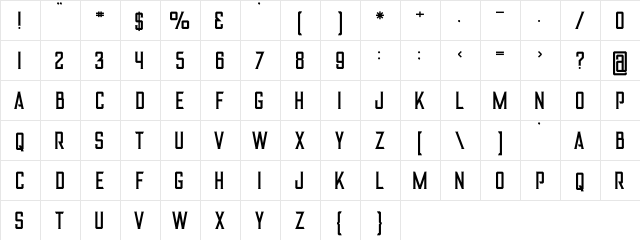
Alter Regular
Design Context for Alter Regular Typeface
Alter Regular takes a measured approach to typography — its balanced proportions and neutral character make it a reliable workhorse for both digital and print work.
Pro Tip: Pair Alter Regular with a font of contrasting weight or personality to build a more expressive typographic hierarchy.